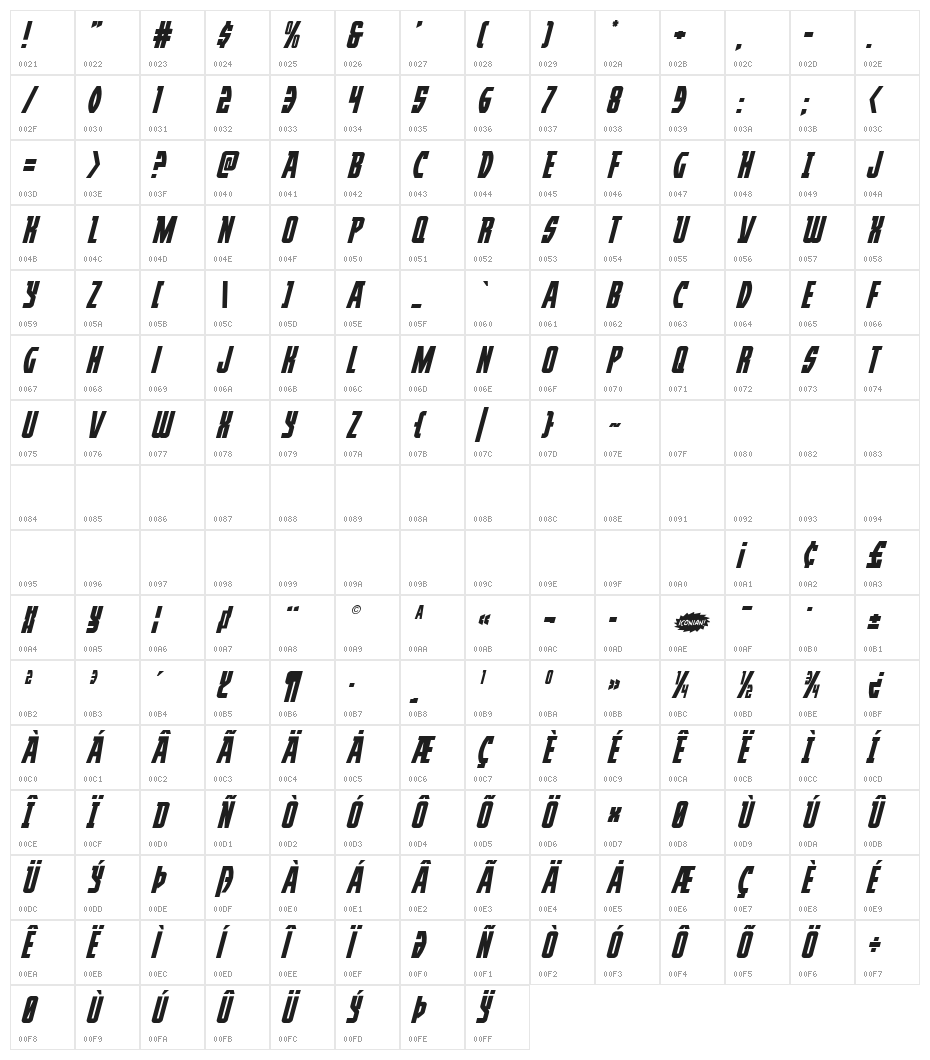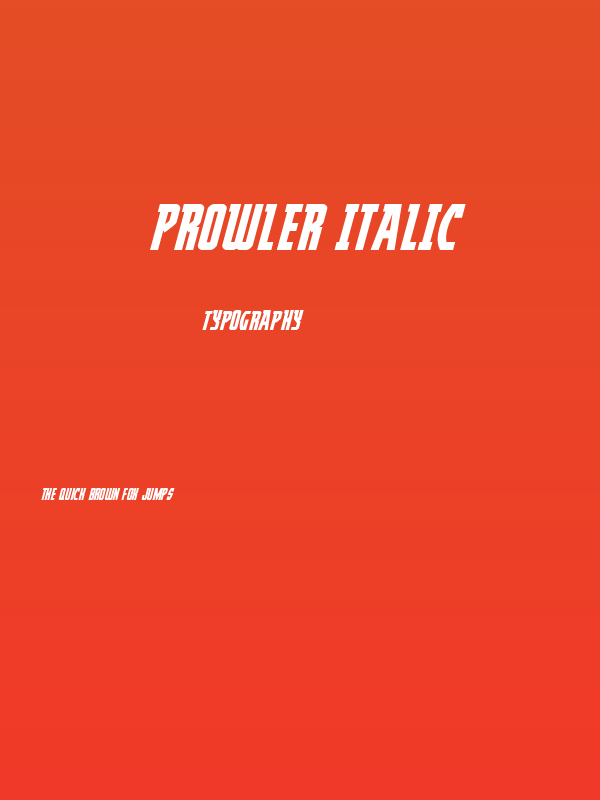
Prowler Italic Font
Prowler Italic Description
This font features a bold and dynamic style with a strong italic slant, giving it a sense of movement and energy. The characters are thick and angular, with sharp edges and a slightly condensed form that enhances its aggressive appearance. The uppercase and lowercase letters maintain a consistent style, while the numerals and special characters complement the overall design. This font's unique style makes it suitable for projects that require a bold statement or a modern, edgy look.
| Proposed Projects | Ideal for sports branding, action movie posters, video game titles, and dynamic advertising campaigns. |